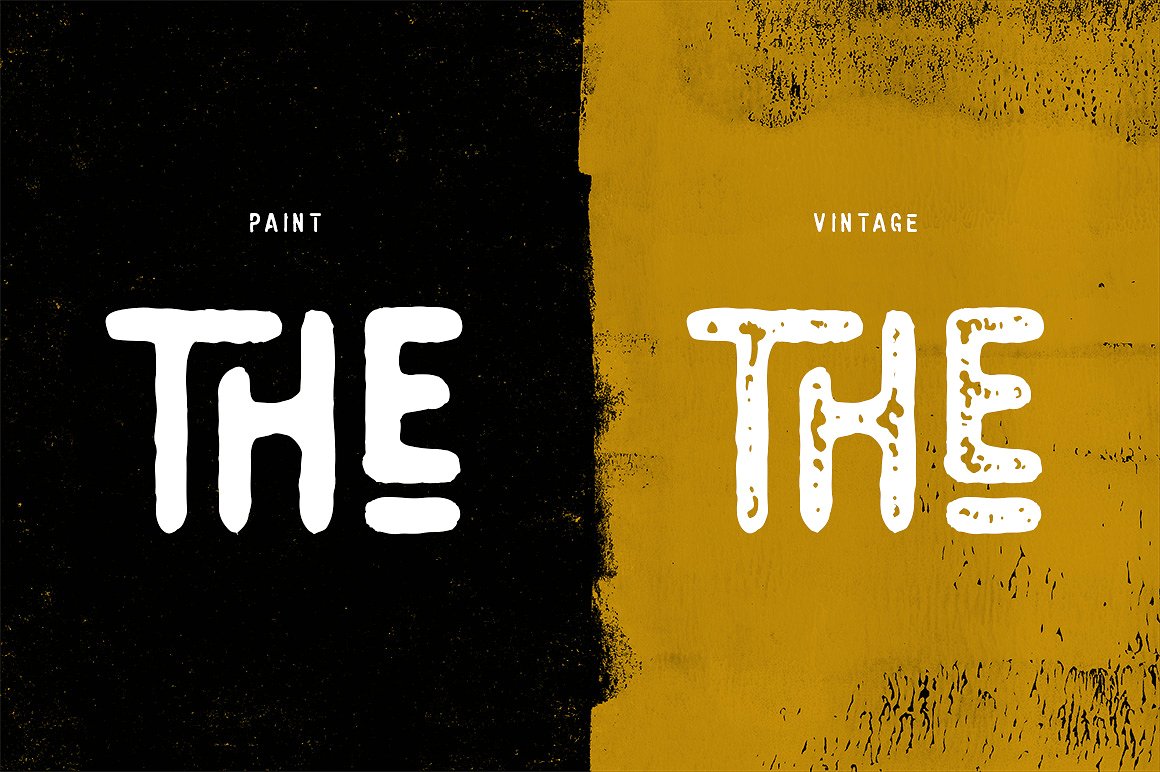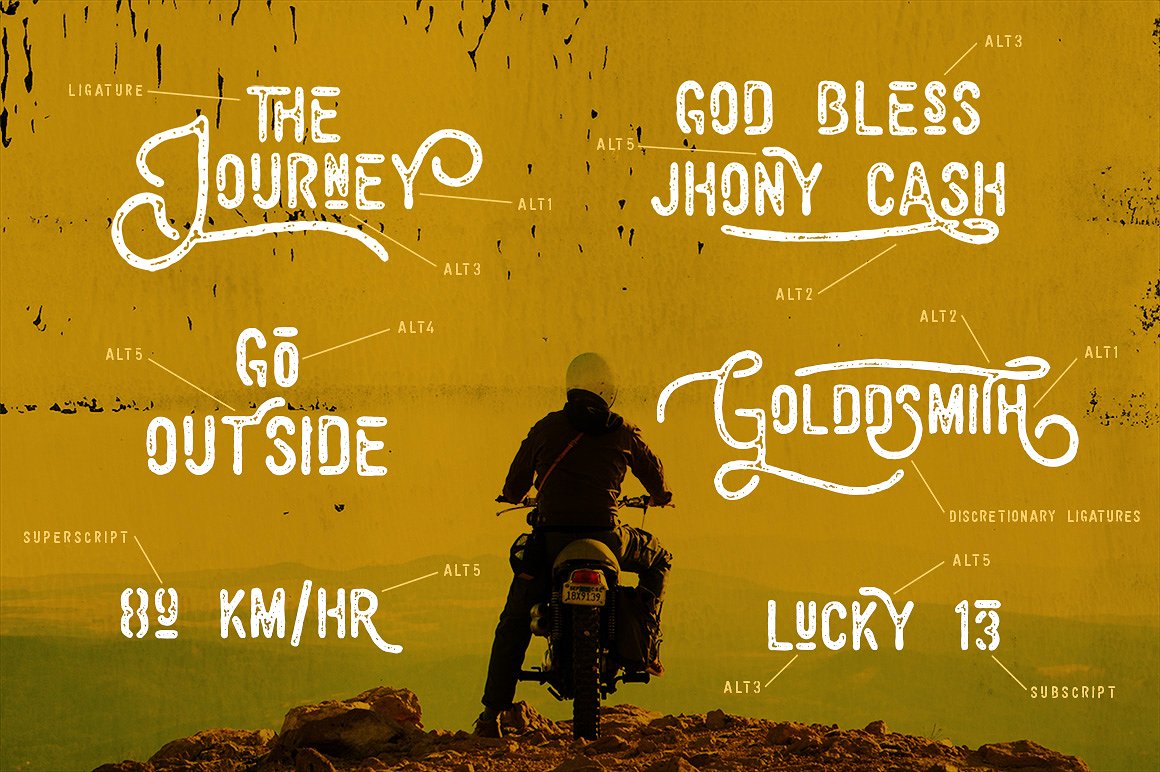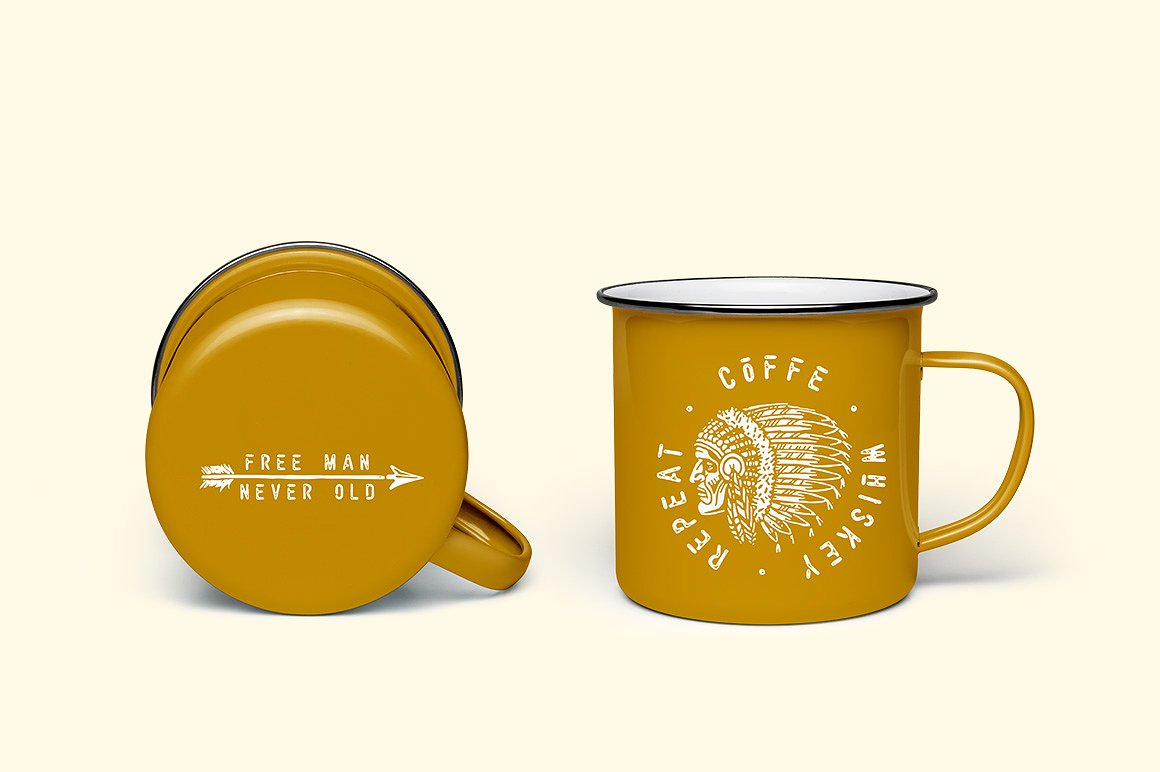
Vulturemotor Font
Introducing Vulturemotor Font! Vulturemotor designed and shared by Burntilldead. Vulturemotor is handmade font, manually hand drawn with brush to make a natural messy, with ligature, discretionary ligature, superscript, and subscript of type could help you make a stylish design, and alternate character could bring a good display. Each glyph made manually one by one with very diligent and consistency.